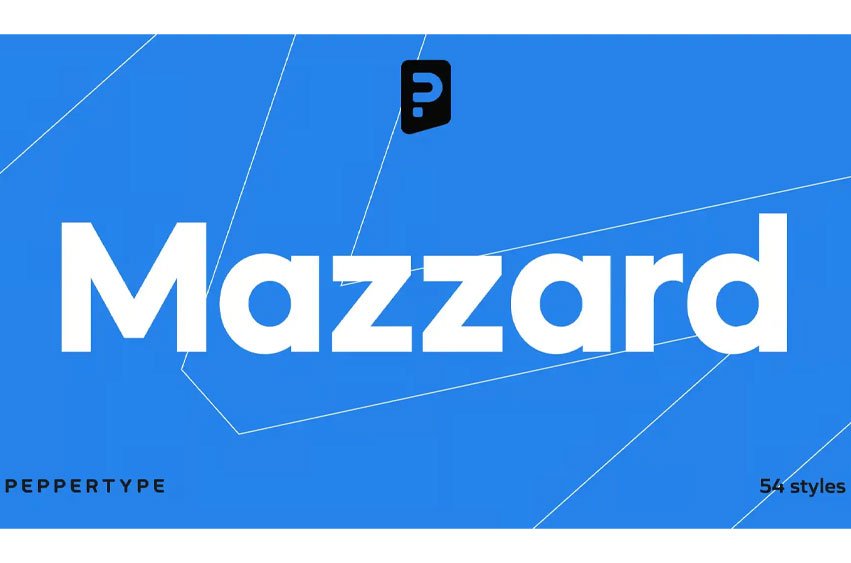
Mazzard Font is a superfamily of three geometric grotesques that comes with three different x-heights; H, M and L.
It has good language support including Cyrillic, and contains many alternate forms which you can choose from